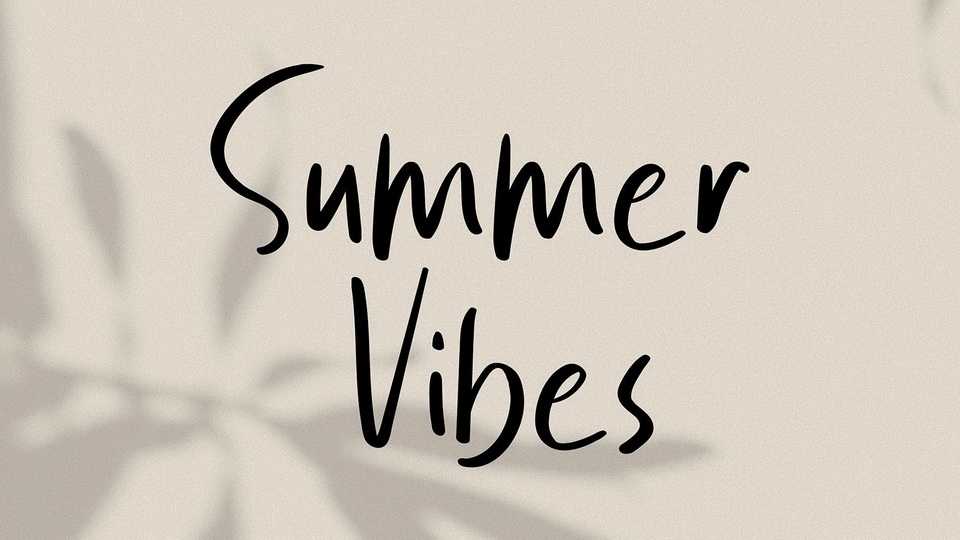
Download Summer Vibes font a very cute handwritten typeface that is suitable for any craft project, such as posters, quotes, banner. Summer Vibes has a very unique look in each character.
Designer: MJB Letters